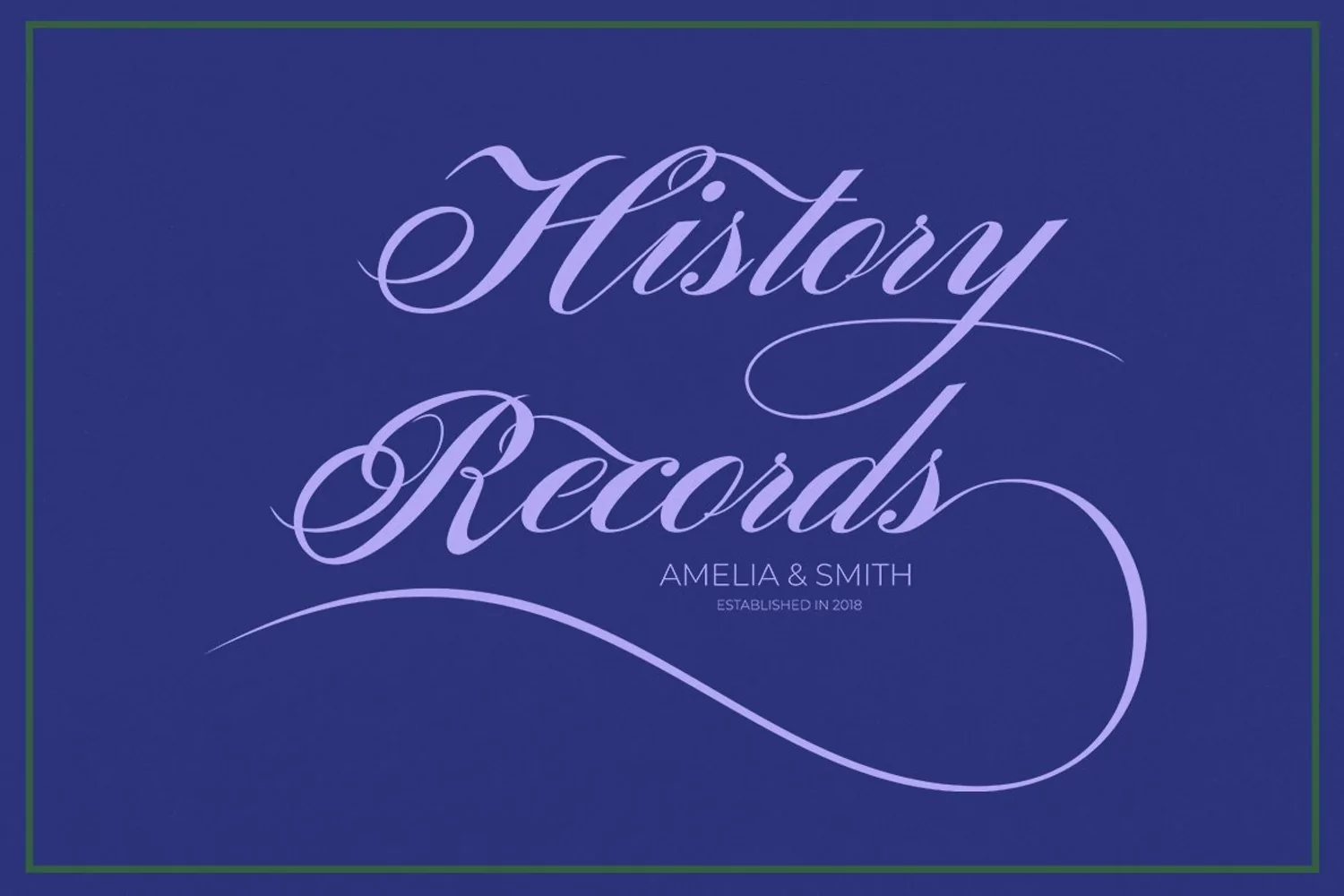
Sunlight Script
Sunlight Script is a calligraphic script font that comes with a lovely alternative character. a mixture of copper calligraphy with a handleting style. Designed for an elegant style. And it is now available as a web font in WOFF format.